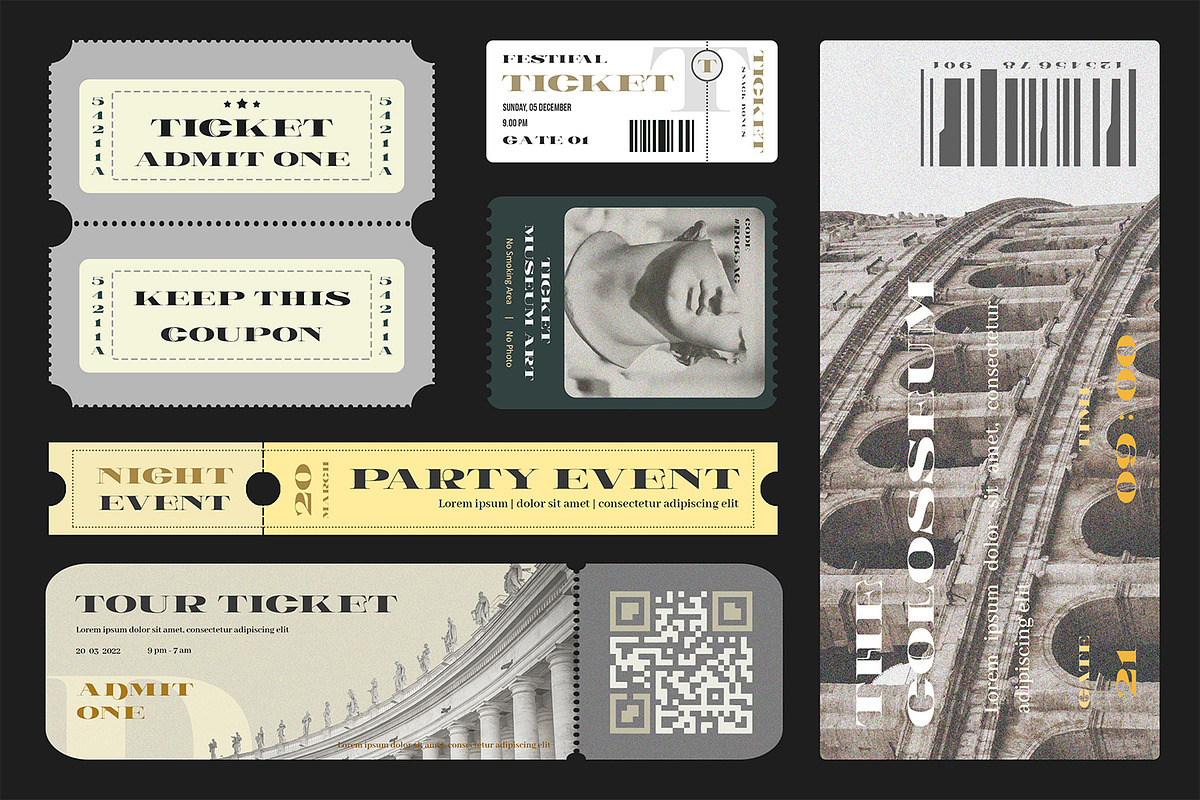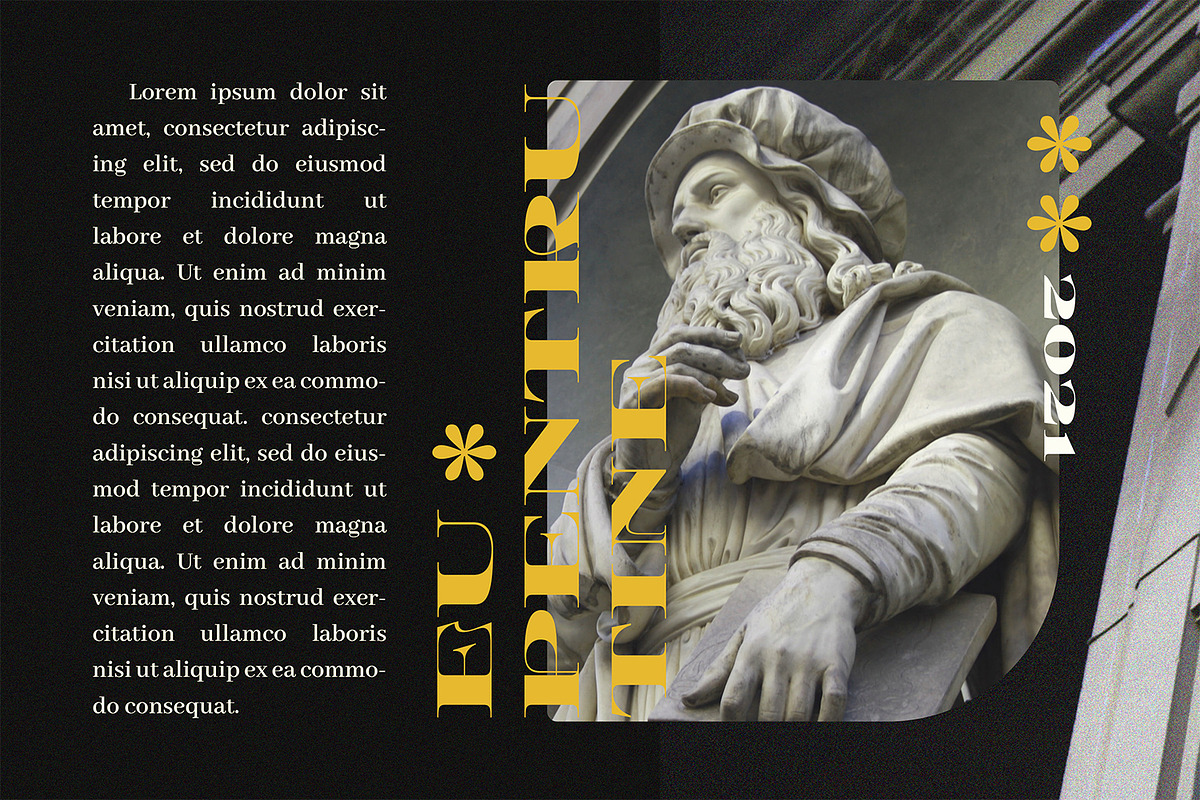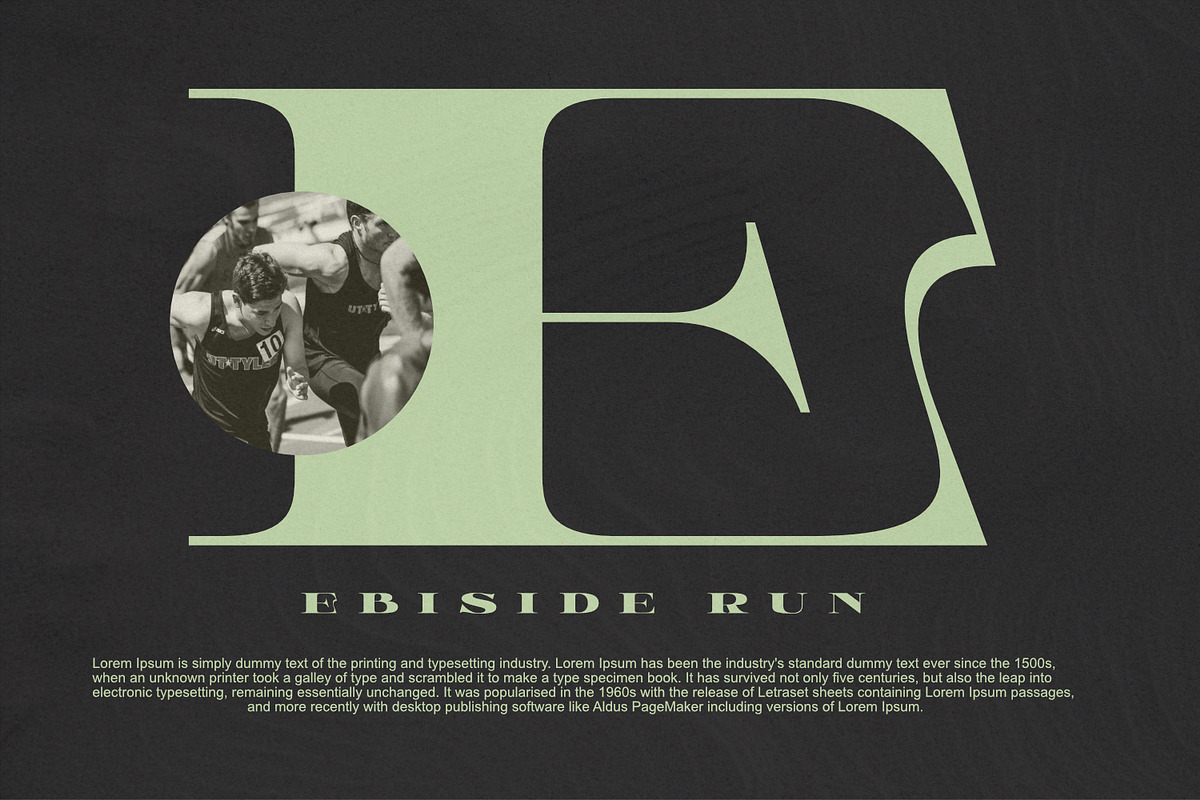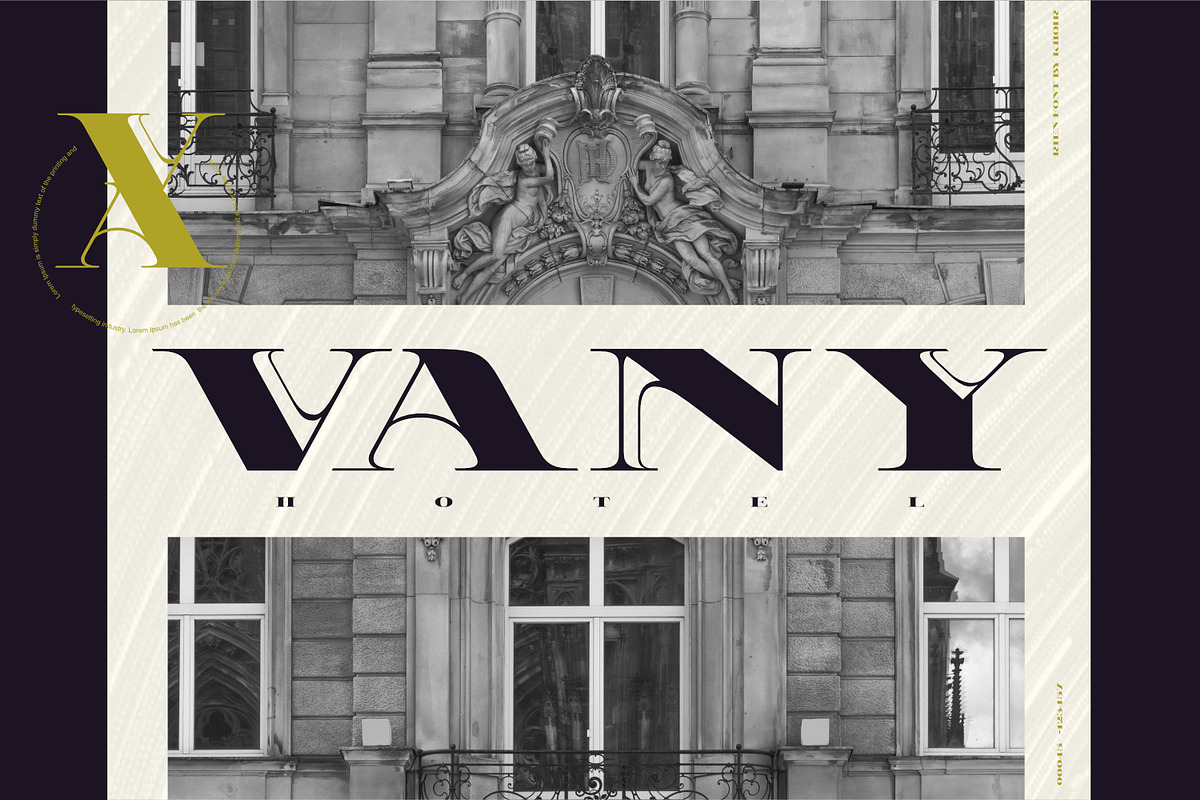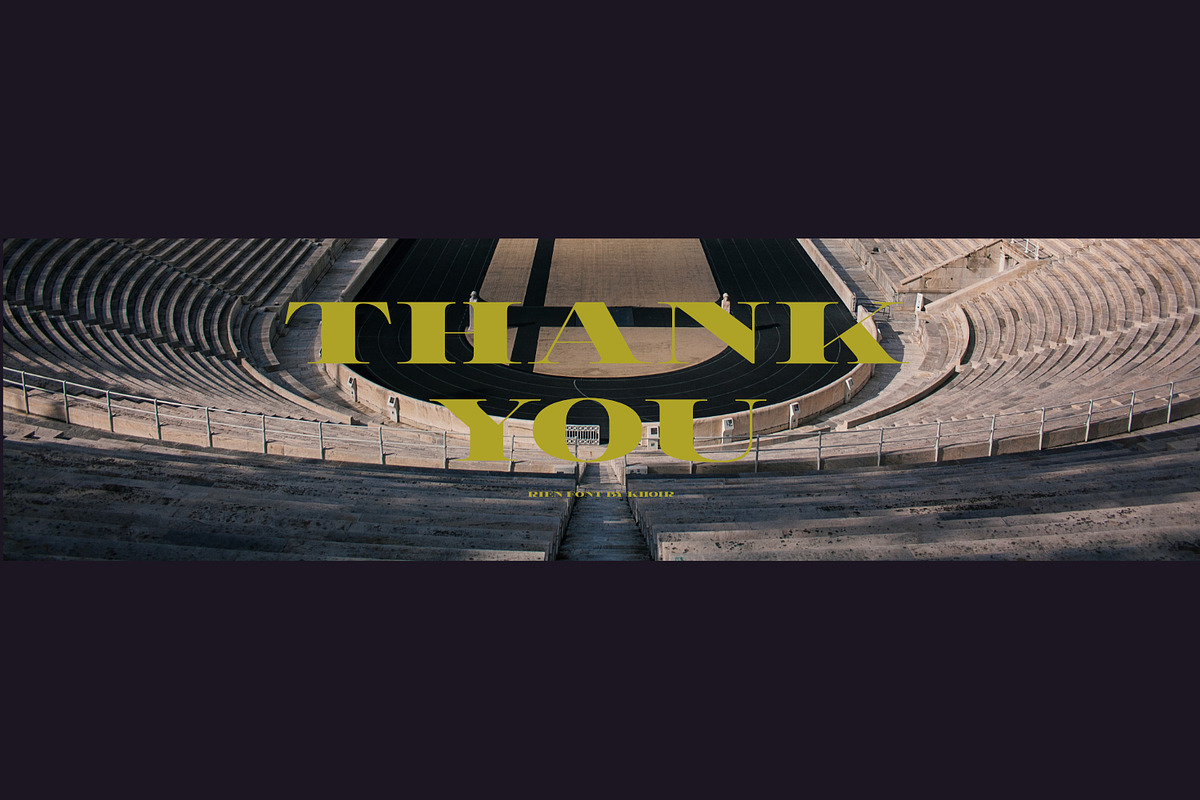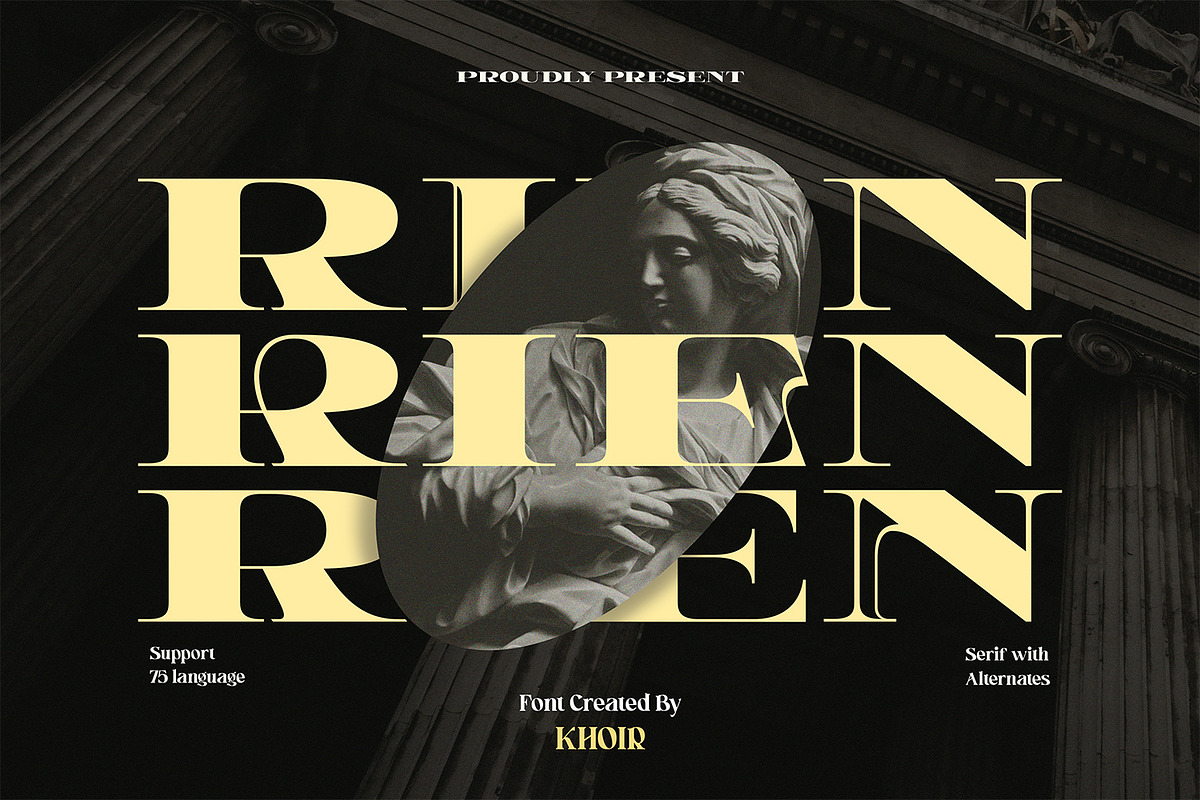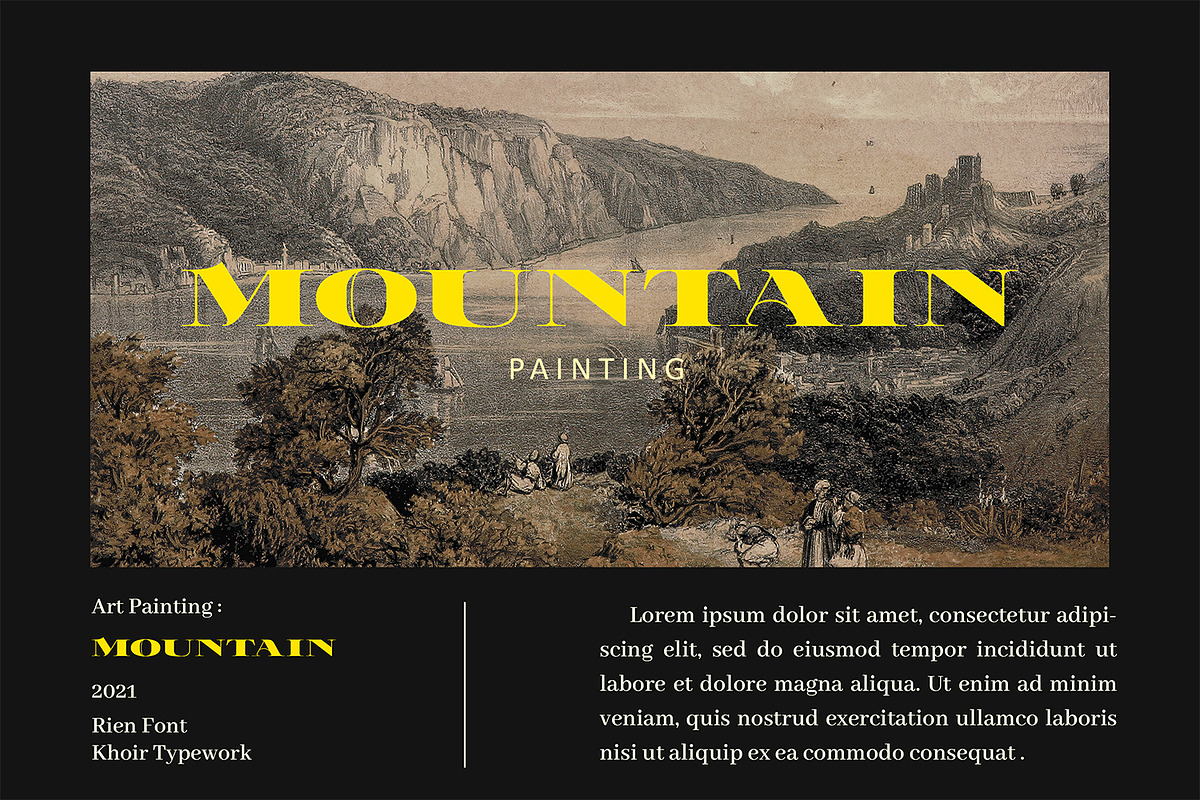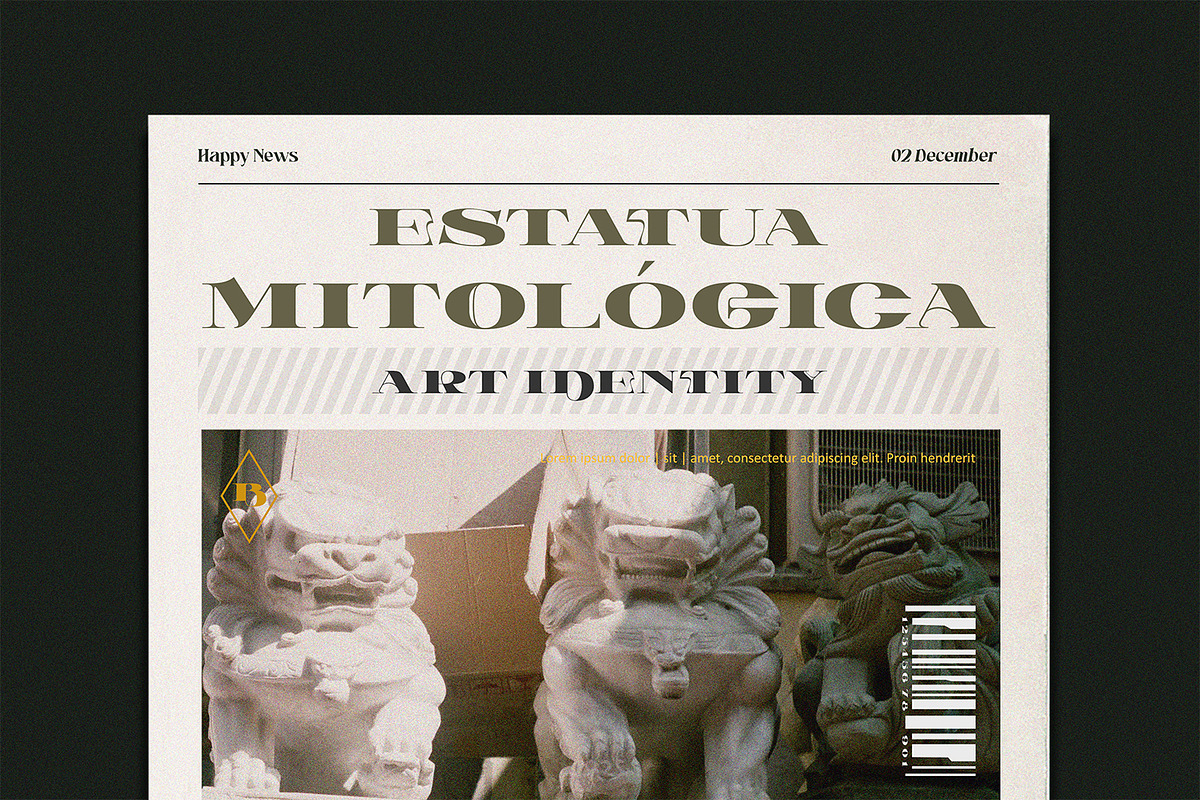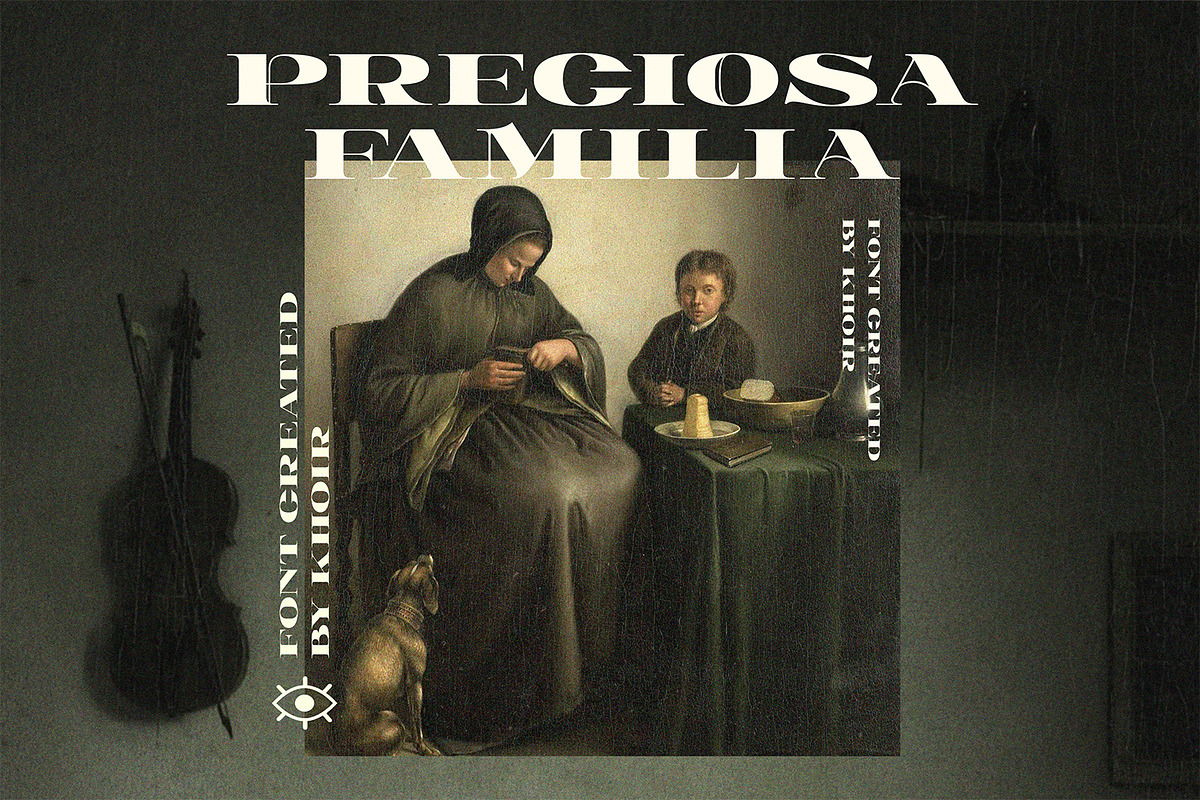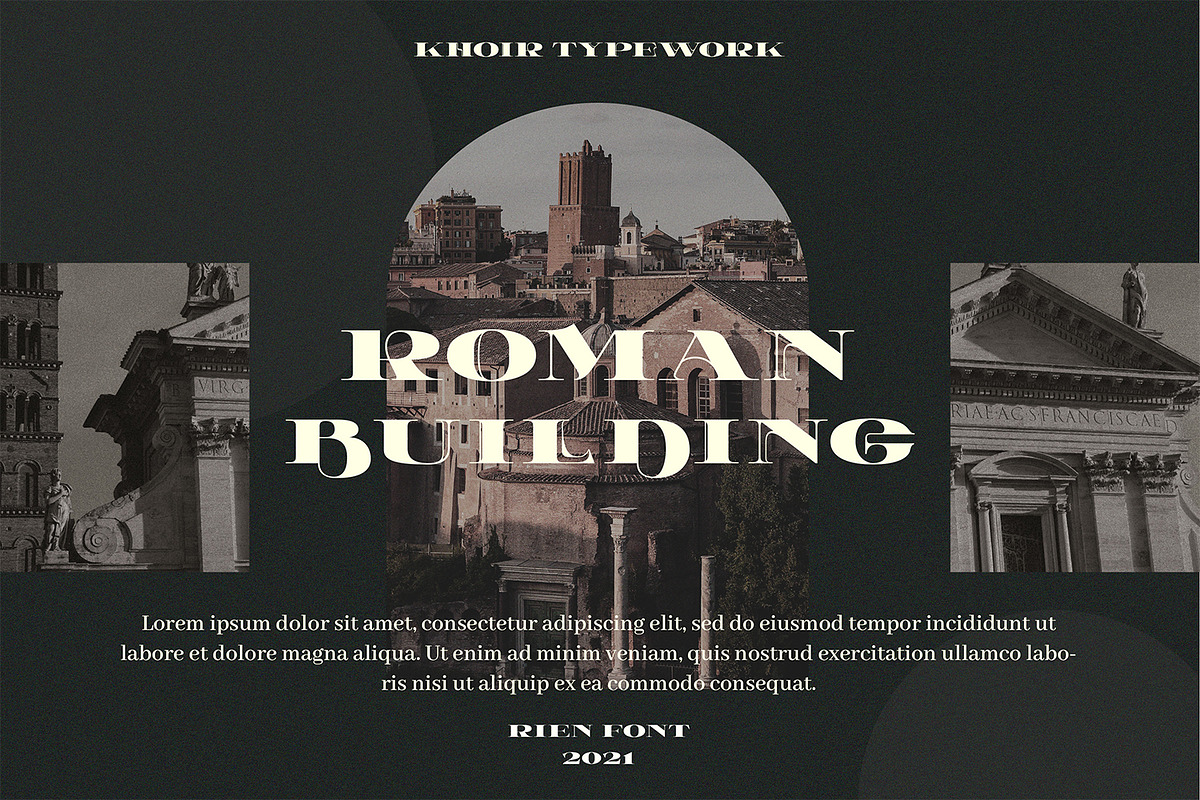
RIEN - Elegant Font
RIEN - Elegant font with a unique alternative touch, perfect for any project you're thinking of, so what are you waiting for?
- Uppercase Characters
- Support 75+ Language